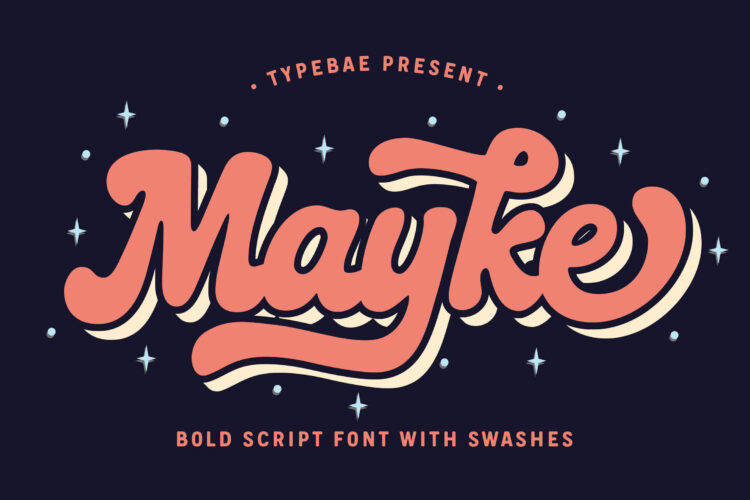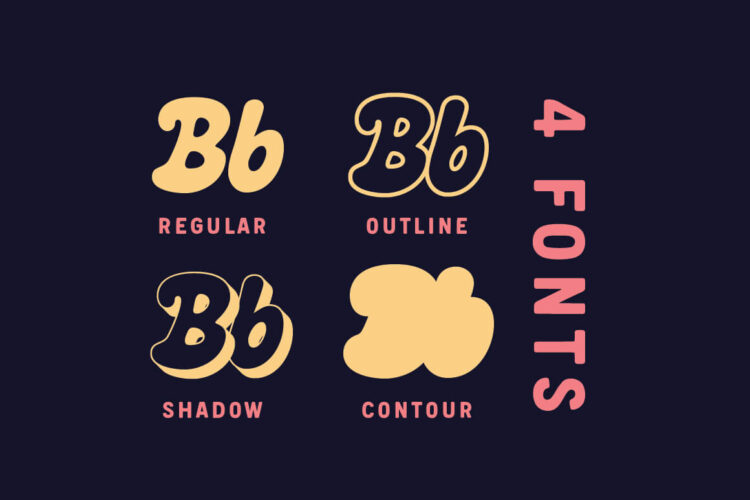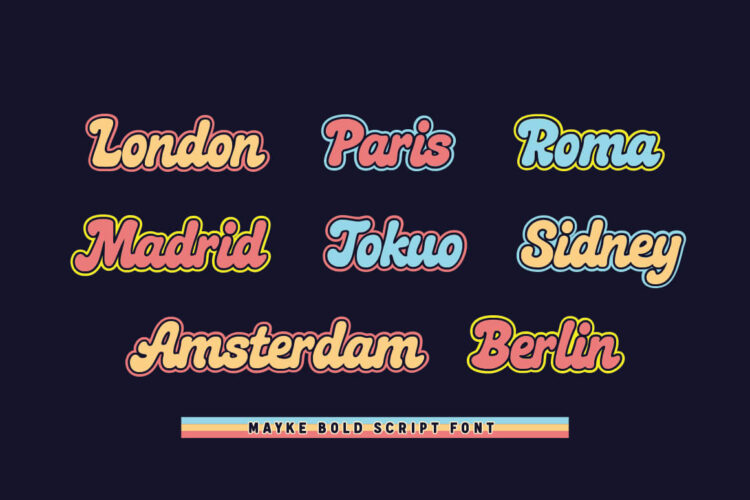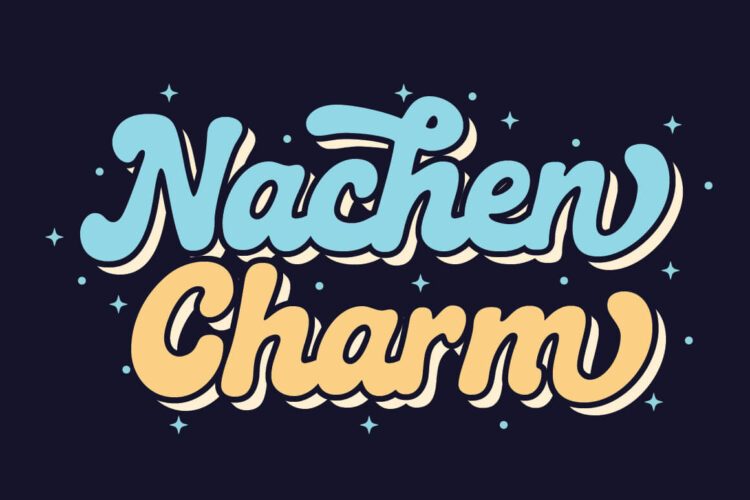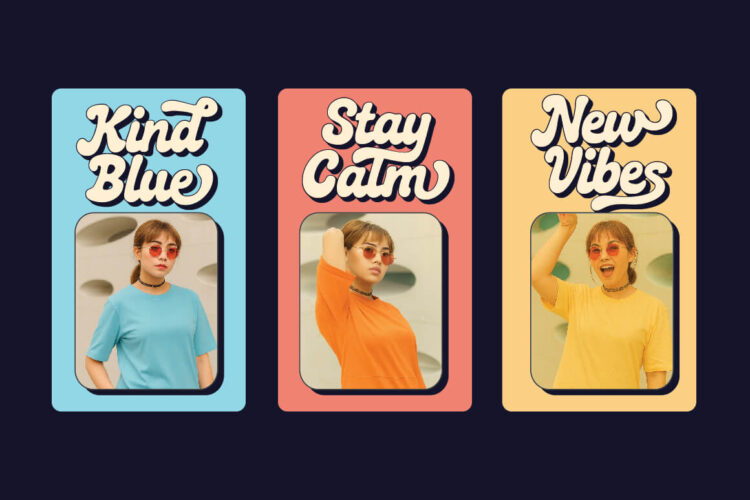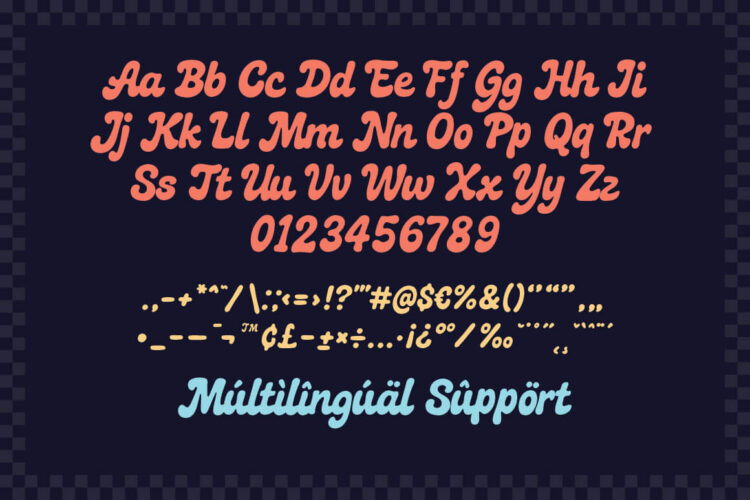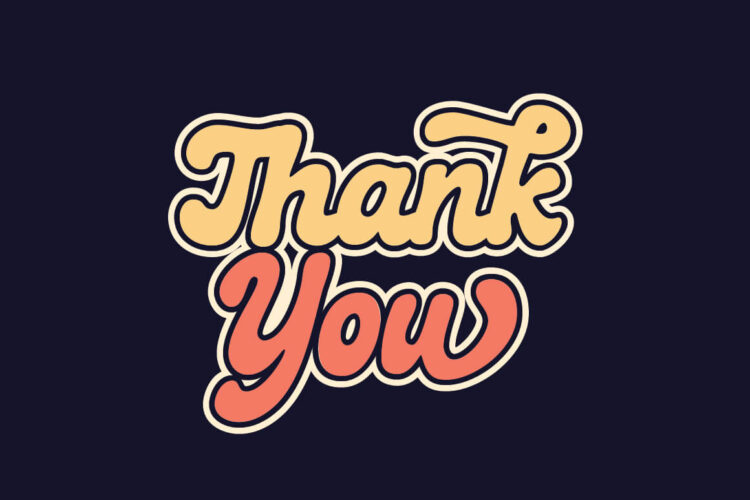
Mayke - Fun Bold Script Font
Mayke is a bold and playful script font family designed to make your projects stand out. This font comes with 4 styles: Regular, Outline, Contour, and Shadow. You can combine these styles to create layered typography with depth and dimension. It is perfect for logos, branding, packaging, posters, quotes, and social media graphics. With smooth curves and a retro-inspired look, Mayke brings fun and vibrant personality to your design projects.
– Uppercase, Lowercase, Numeral & Punctuation
– Ending Swashes & Ligatures
Mayke – Fun Layered Bold Script Font